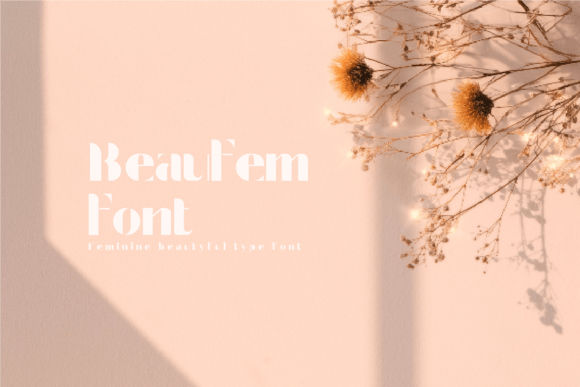
The Elegance of Beaufem Font: A Perfect Choice for Feminine Branding
In the world of typography, fonts play a crucial role in conveying the message and aesthetic of a brand. For businesses and designers looking for a typeface that exudes femininity, softness, and beauty, the Beaufem font stands out as an exceptional choice. This display font is meticulously designed with beautiful, soft, and feminine characters that can instantly elevate the visual appeal of various projects. In this article, we’ll delve into the characteristics of the Beaufem font, its ideal uses, and why it’s a preferred choice for designers and crafters alike.
Characteristics of Beaufem Font
The Beaufem font is distinguished by its elegant and delicate features. Each character is crafted to convey a sense of softness and femininity, making it an ideal typeface for projects that require a touch of grace and sophistication. The font’s design ensures that it is not only visually appealing but also highly legible, which is crucial for effective communication.
Ideal Uses of Beaufem Font
Given its feminine and soft characteristics, the Beaufem font is particularly suitable for:
- Beauty Product Logos: For brands that offer beauty products, the Beaufem font can be a perfect fit. Its elegant and feminine appeal aligns well with the beauty and skincare industry, helping brands to establish a sophisticated and appealing identity.
- Women’s Clothing Brands: Fashion brands targeting women can greatly benefit from using the Beaufem font. It adds a touch of femininity and grace to the brand’s logo or promotional materials, making it more attractive to the target audience.
- Feminine Logos and Brands: Any brand or logo that aims to convey qualities such as femininity, softness, and beauty can leverage the Beaufem font. It’s versatile and can be adapted to various design contexts that require a delicate and elegant typeface.
- Promotional Content: For promotional content related to beautiful things, women, femininity, tenderness, and more, the Beaufem font can enhance the visual appeal and make the content more engaging. Whether it’s for social media posts, flyers, or online advertisements, this font can help in creating a cohesive and appealing visual identity.
Why Designers and Crafters Love Beaufem Font
Designers and crafters appreciate the Beaufem font for several reasons:
- Versatility: Despite being a display font, Beaufem offers a range of possibilities for creative expression. It can be used in various design projects, from logos and branding to promotional materials and digital content.
- Aesthetic Appeal: The font’s beautiful and feminine design elements make it a favorite among designers who aim to create visually stunning projects. It adds an element of elegance and sophistication that is hard to achieve with more generic typefaces.
- Emotional Connection: The Beaufem font helps in creating an emotional connection with the target audience, especially in contexts where conveying softness, femininity, and beauty is crucial. This emotional resonance can significantly enhance the effectiveness of a brand’s messaging.
Tips for Using Beaufem Font Effectively
To make the most out of the Beaufem font, consider the following tips:
- Pair with Complementary Fonts: When using Beaufem for headings or titles, pair it with a simpler, sans-serif font for body text to maintain readability and visual balance.
- Adjust Font Sizes: Experiment with different font sizes to emphasize certain words or phrases, adding depth and hierarchy to your design.
- Play with Colors: The Beaufem font looks great in pastel shades, soft pinks, and elegant blacks. Choose colors that align with your brand’s palette to ensure consistency.
In conclusion, the Beaufem font is a versatile and aesthetically pleasing typeface that can elevate a wide range of design projects. Its feminine, soft, and beautiful characteristics make it an ideal choice for beauty product logos, women’s clothing brands, and any project requiring a touch of elegance. Designers and crafters can leverage the Beaufem font to create visually stunning and emotionally resonant content that connects with their audience.